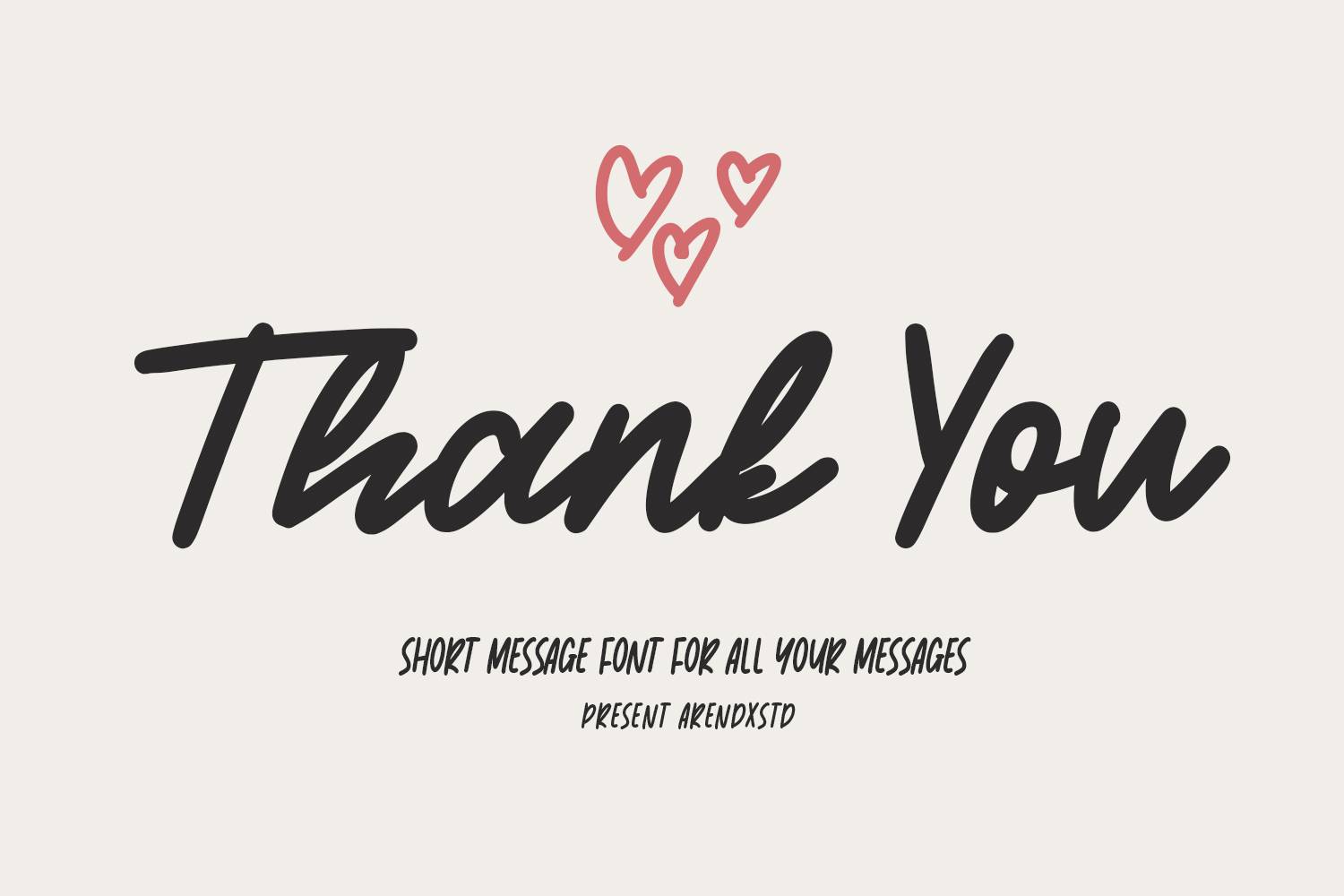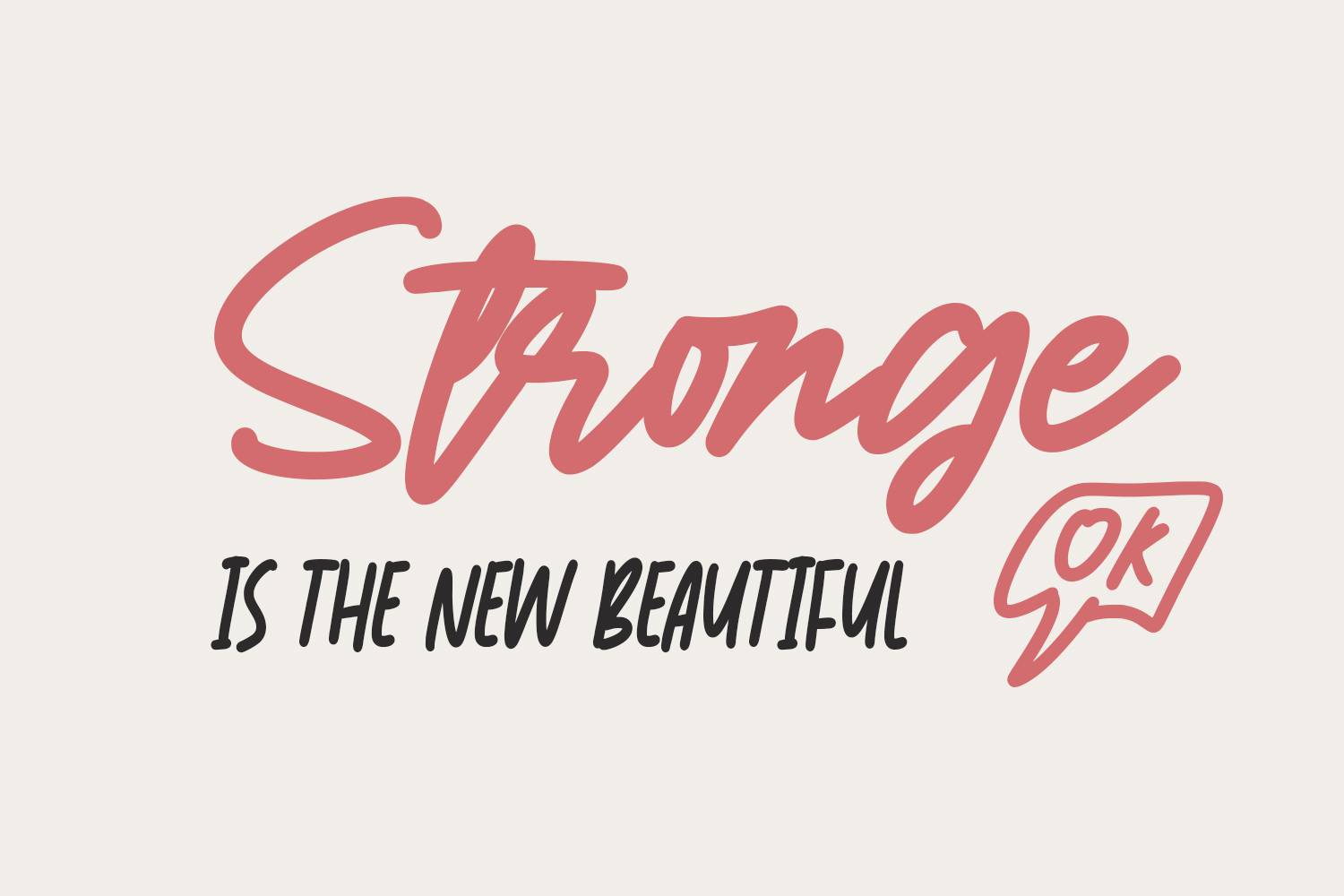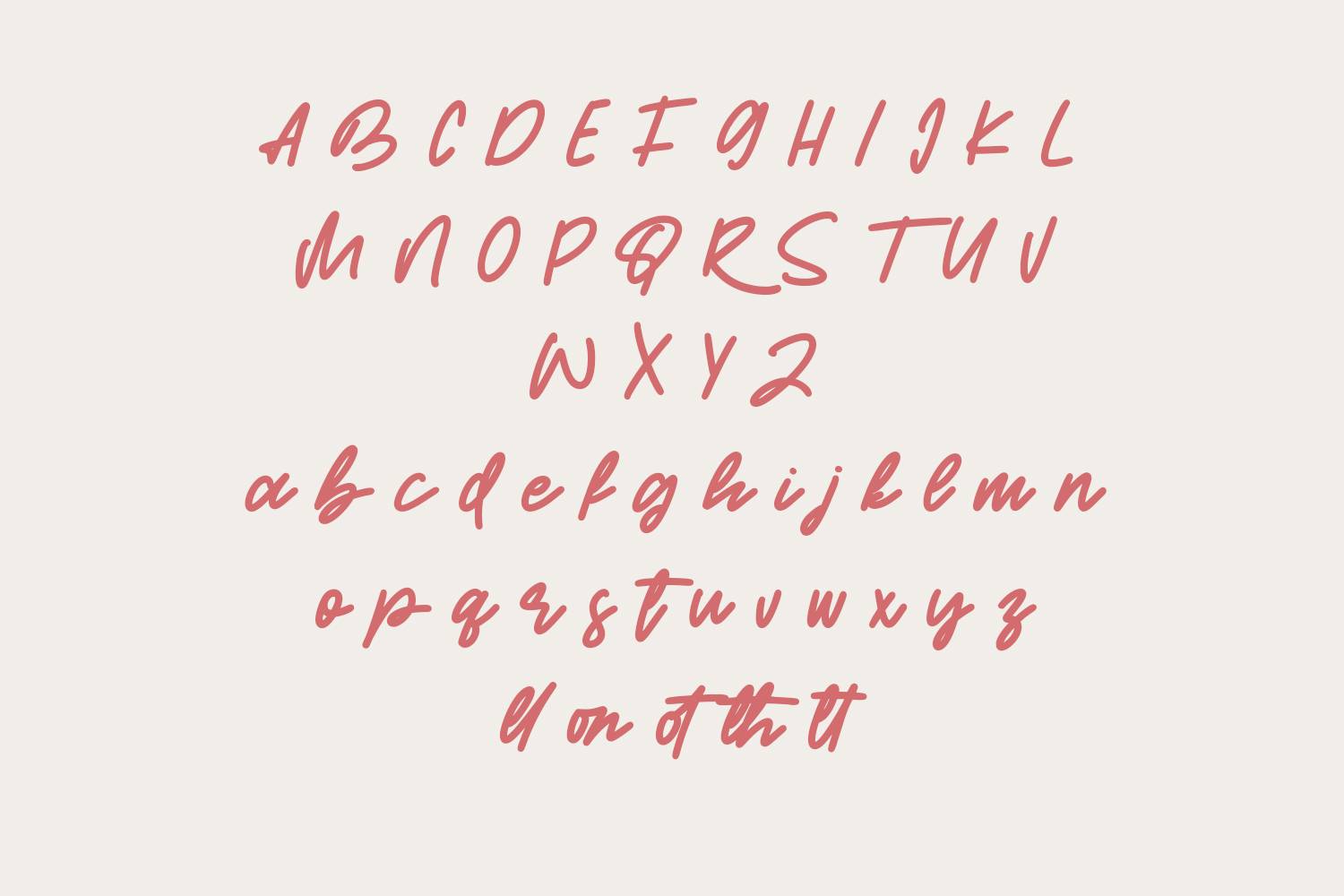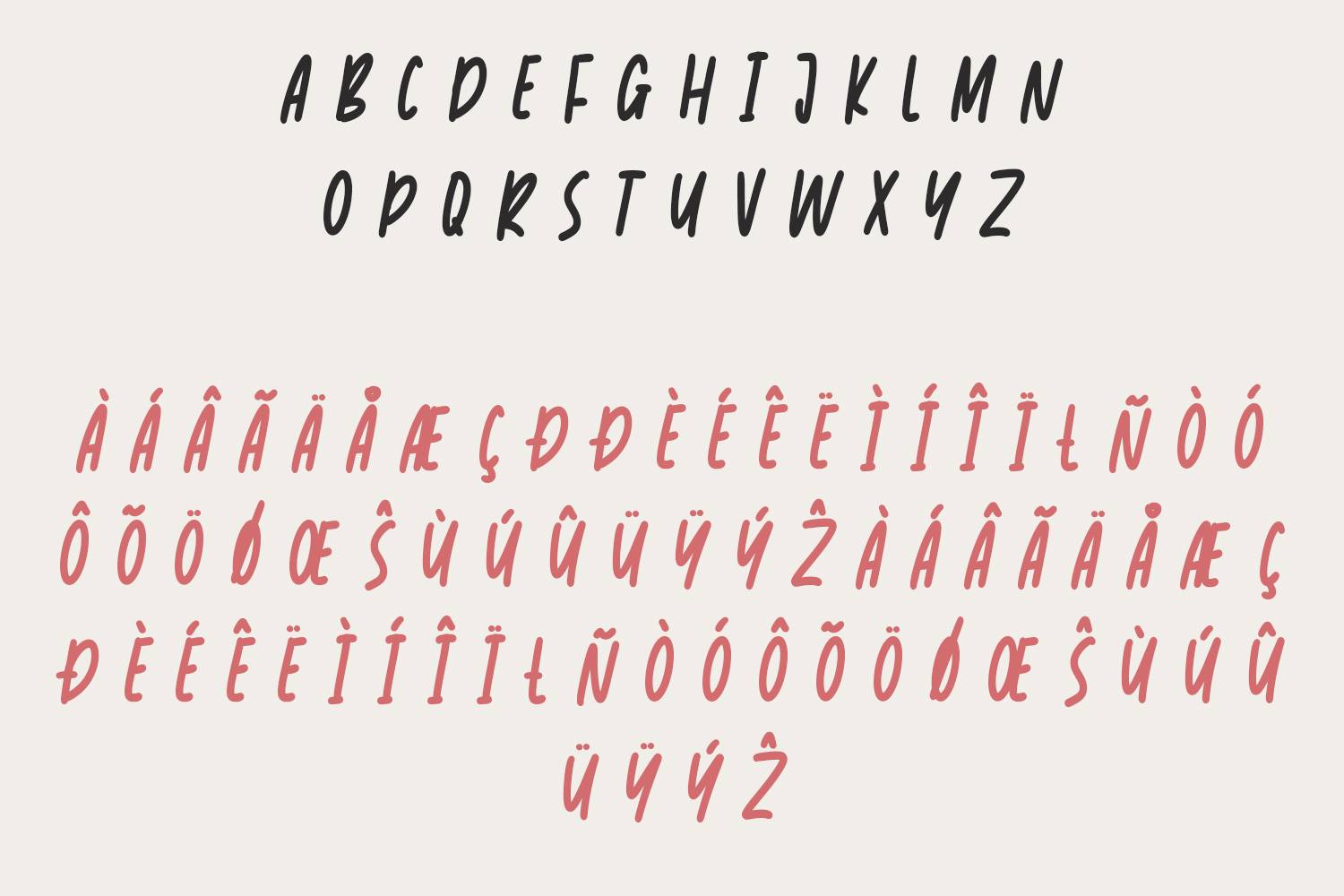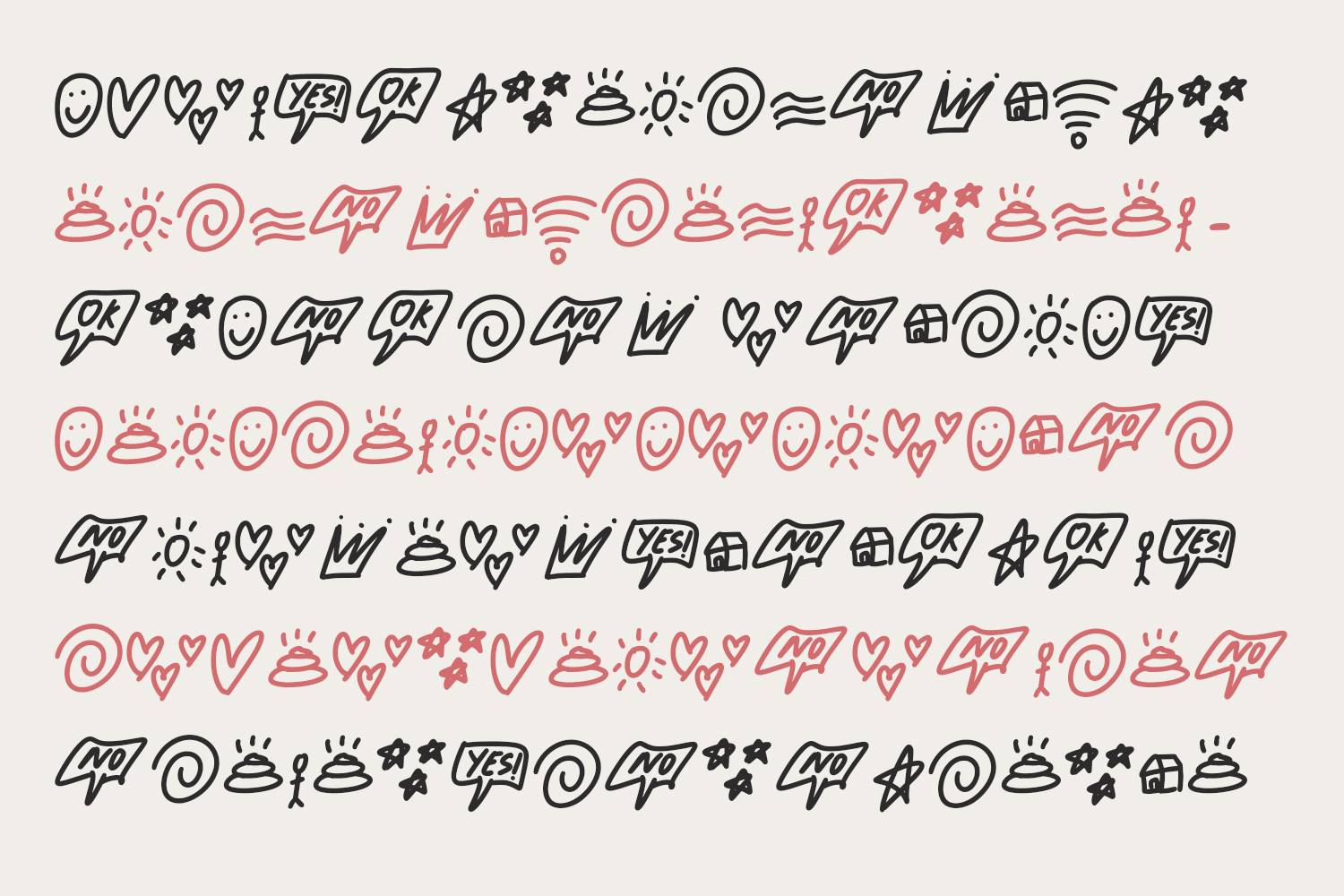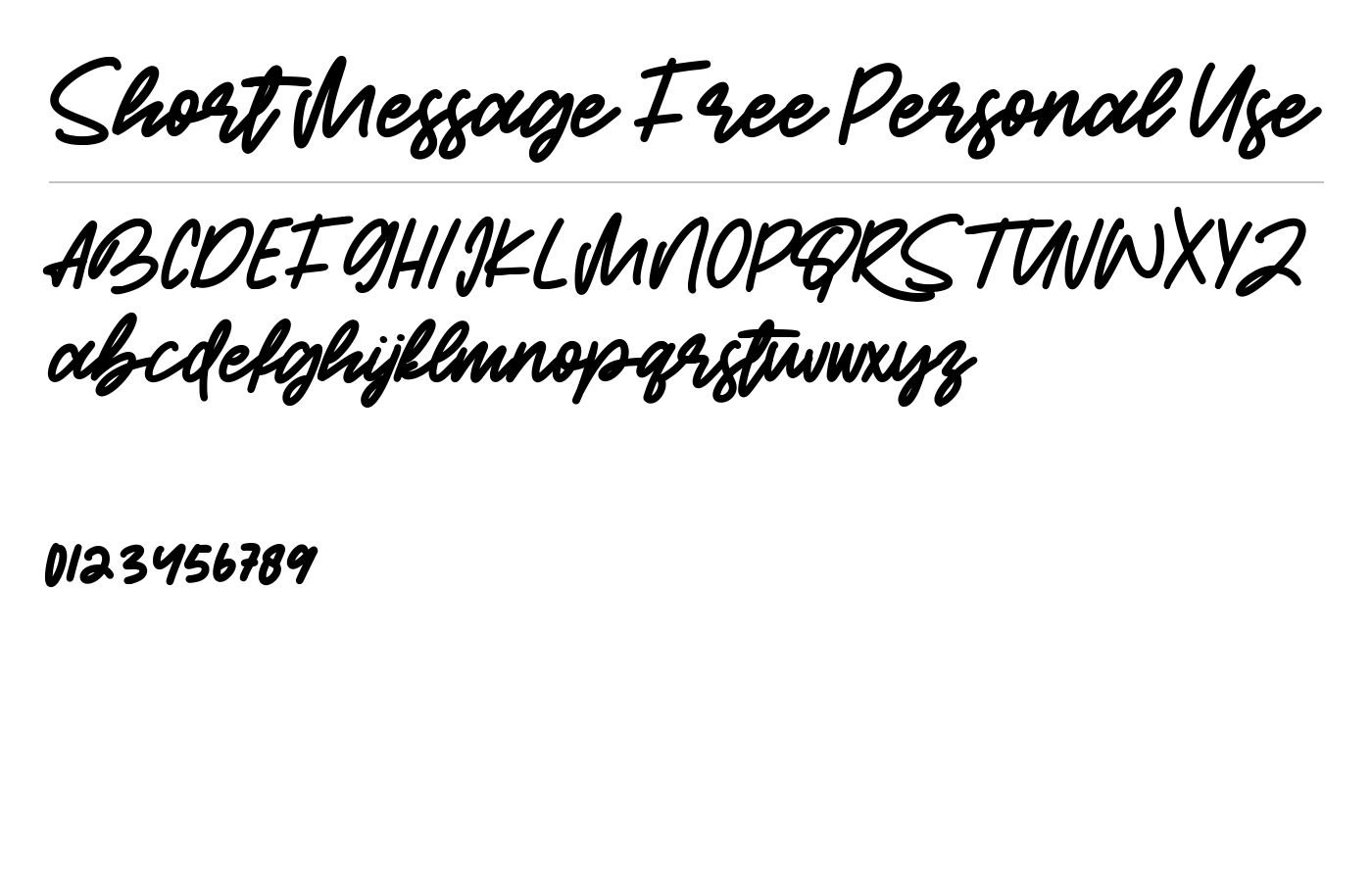
Short Message Font is a lively and casual script typeface that mimics natural handwriting with its fluid, connected letterforms and moderate weight. Its playful yet clear style makes it perfect for informal branding, personal projects, and creative headlines where a friendly and approachable tone is desired. This font works especially well in social media graphics, invitations, and any design that benefits from a personal, handwritten feel.
Short Message Font
About Short Message Font
| Font family | Short Message Font |
| Designer | arendxstudio |